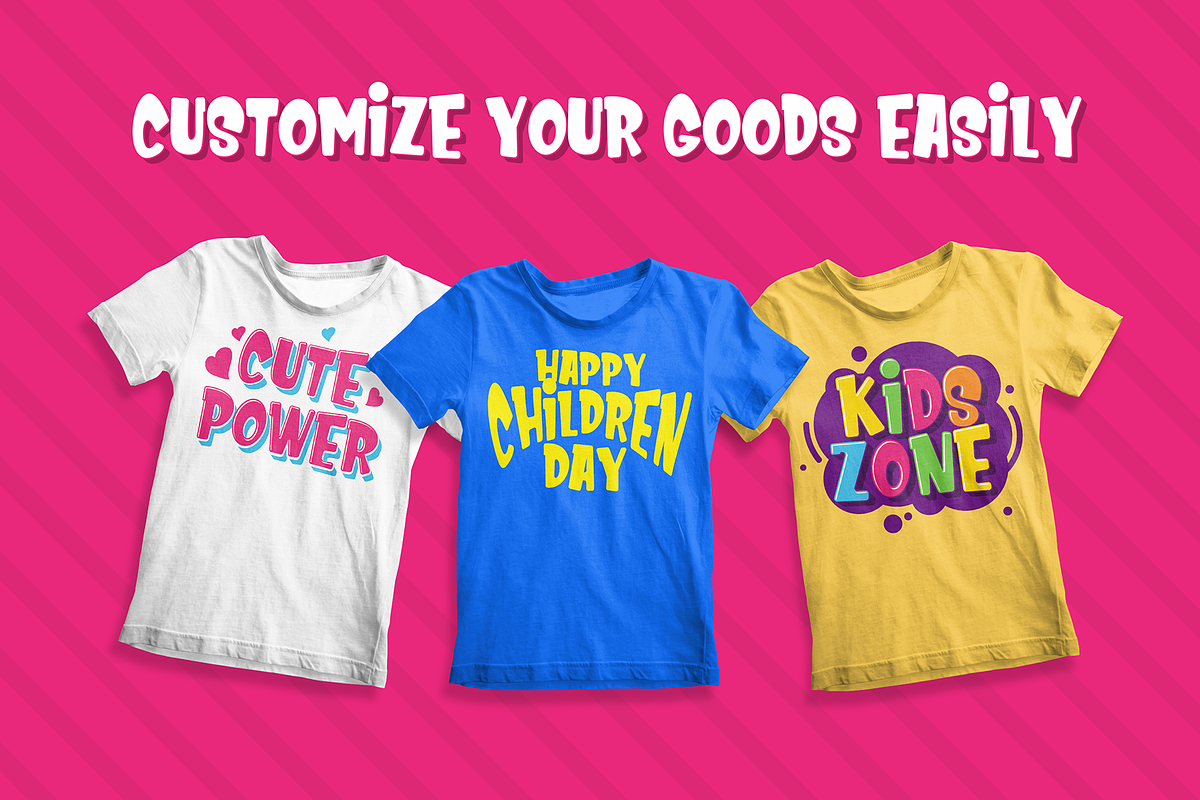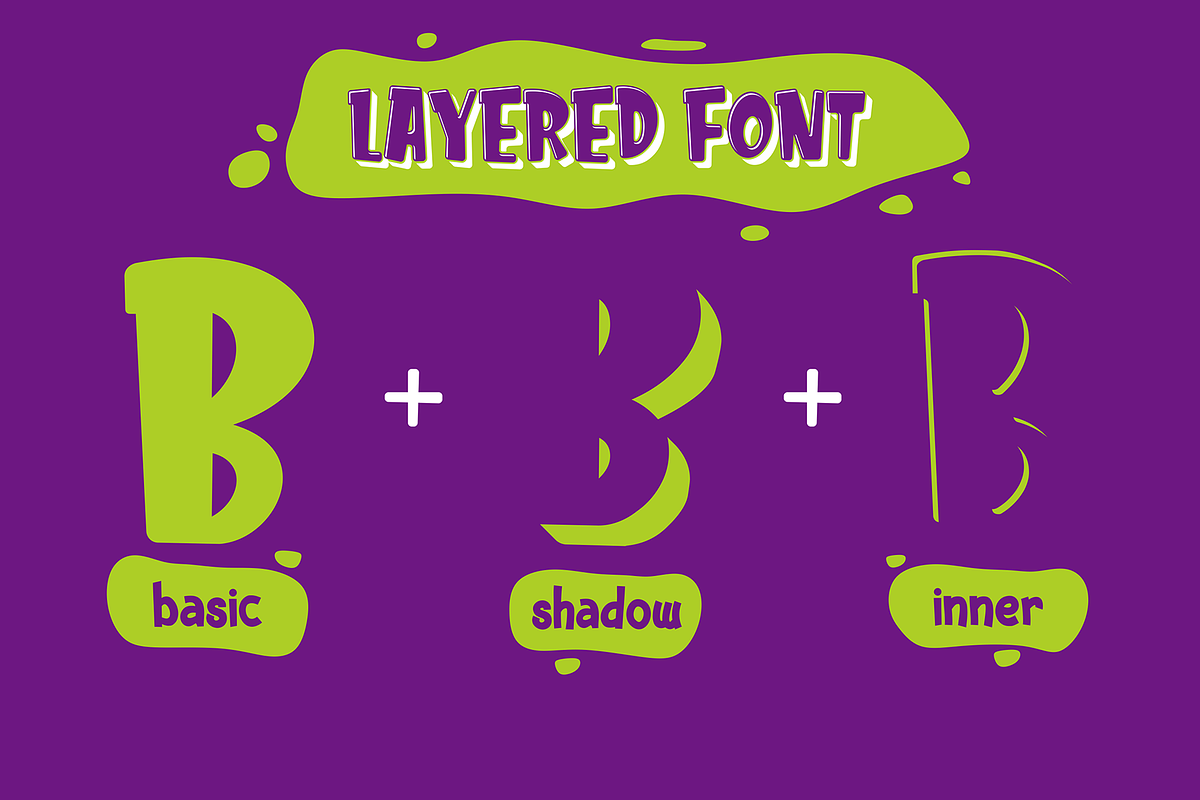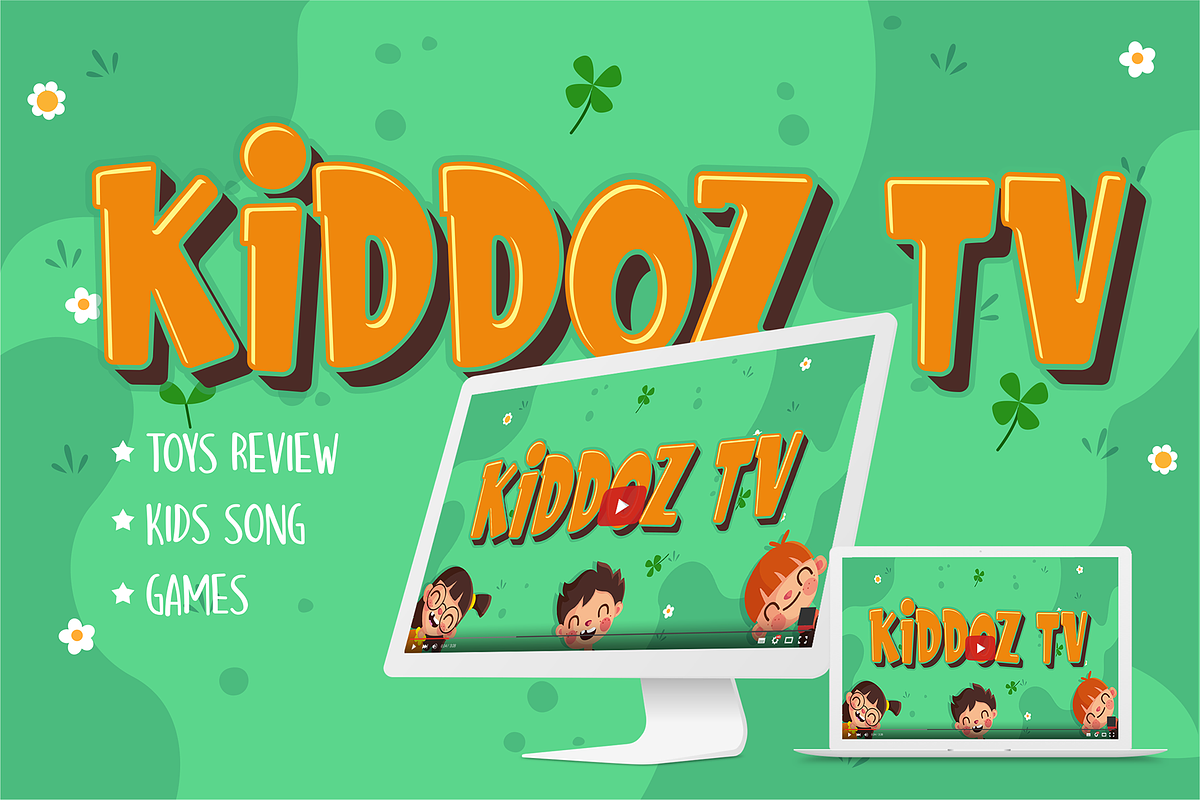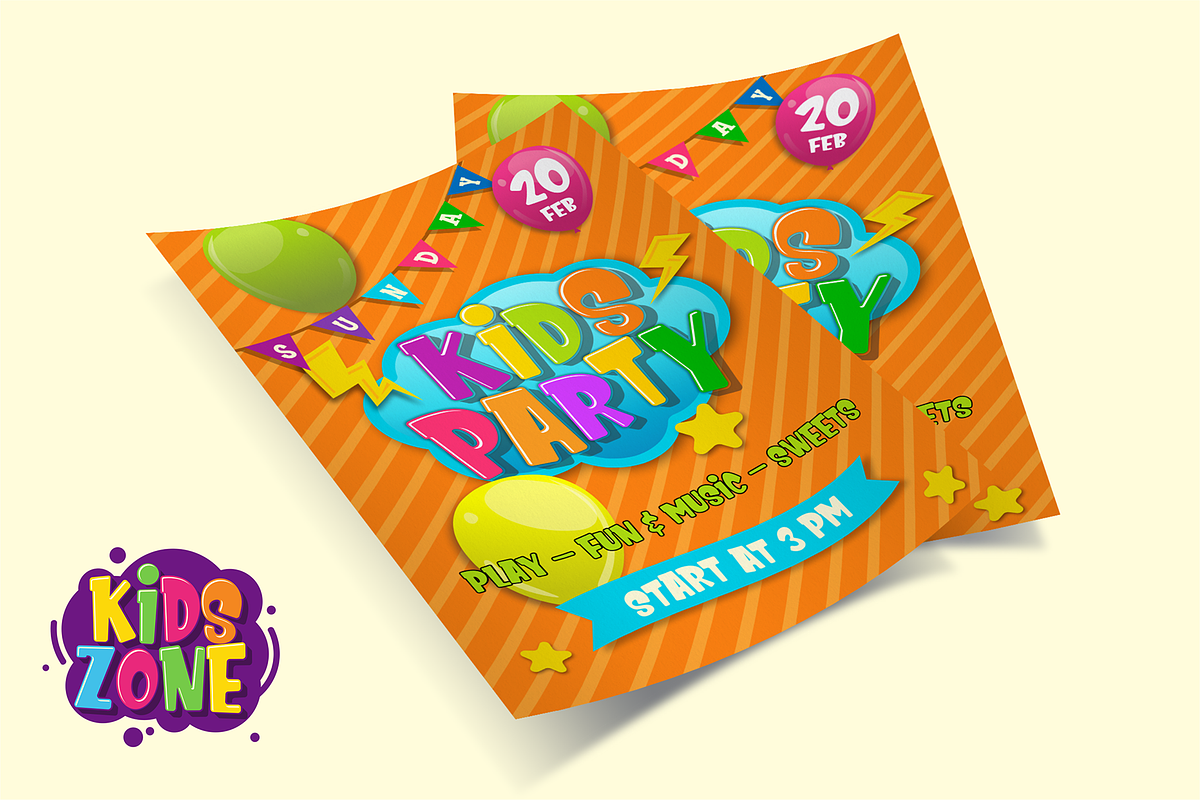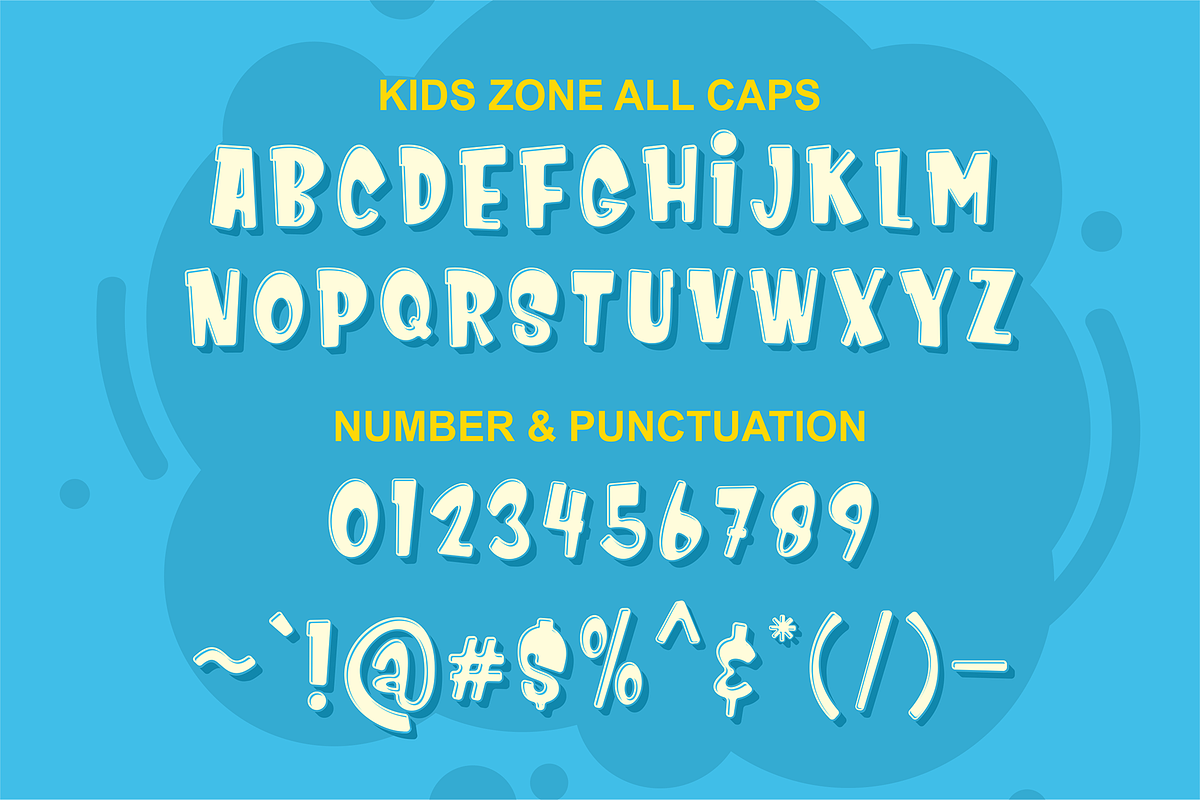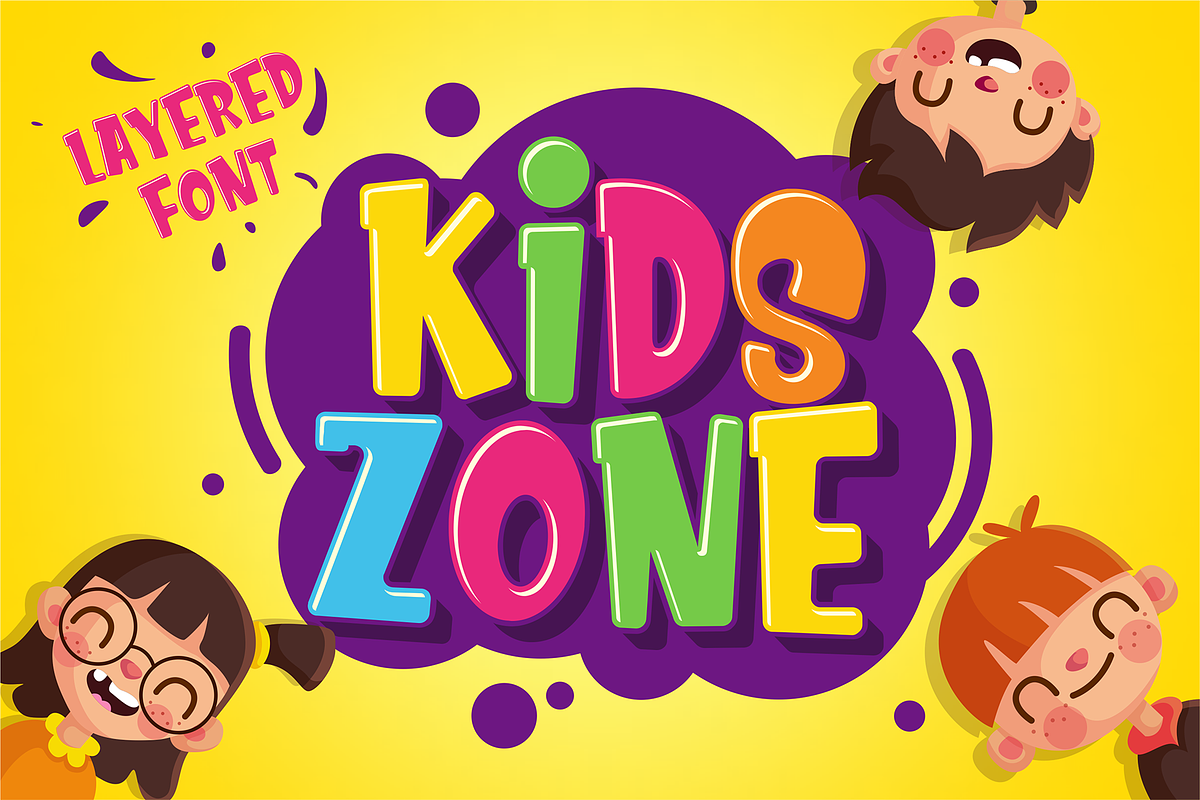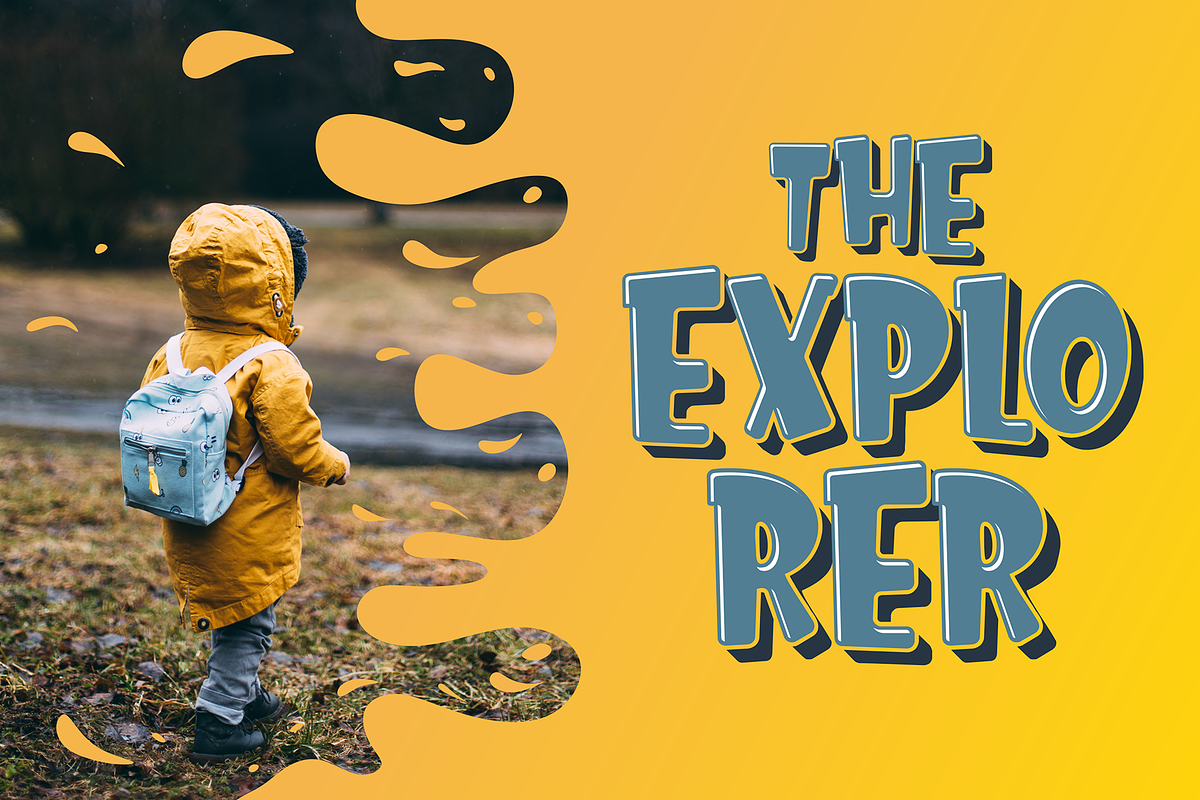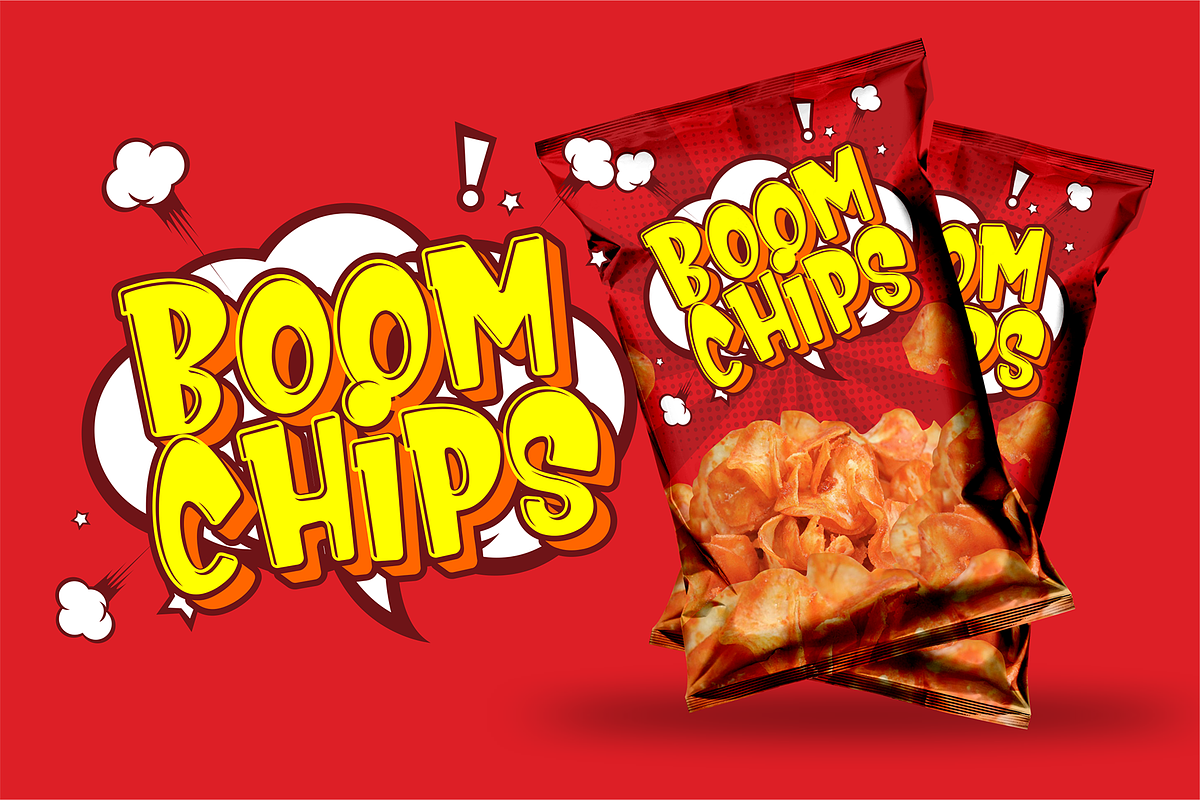
Kids Zone // Layered Font
Kids Zone is a layered font inspired by the joyful world of colorful children. The unique characteristics of Kids Zone make it very suitable for various purposes such as quotes, t-shirt designs, flyers, youtube channels, labels, logos etc.
- Kids Zone Regular
- Kids Zone Shadow Regular
- Kids Zone Inner Regular